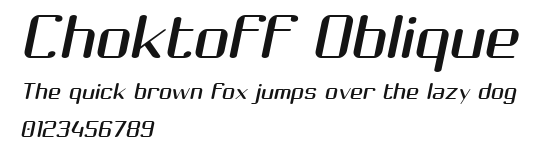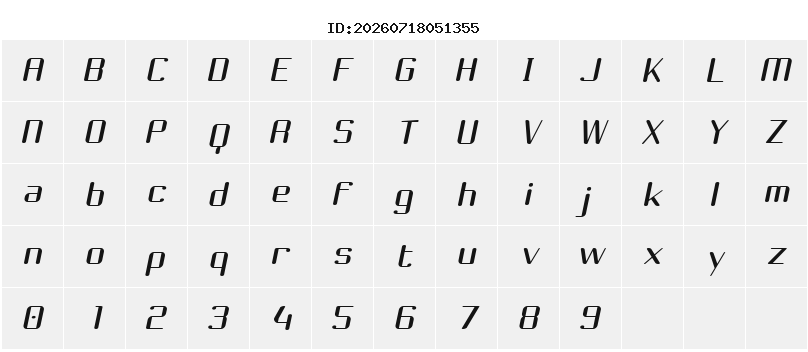
Choktoff Oblique Preview
• Font Name: Choktoff Oblique
• Font ID: GrahamMeade: Choktoff Oblique: 2003
• Full Font Name: Choktoff Oblique
• Version: Version 1.00 2003 initial release
• PostScript Name: ChoktoffOblique
• Character Count: 258
• Manufacturer: Graham Meade
About Choktoff Oblique.ttf
Choktoff Oblique.ttf is a modern, elegant sans-serif font designed for ultimate readability and visual harmony. Perfect for branding, headlines, web design, and print materials.